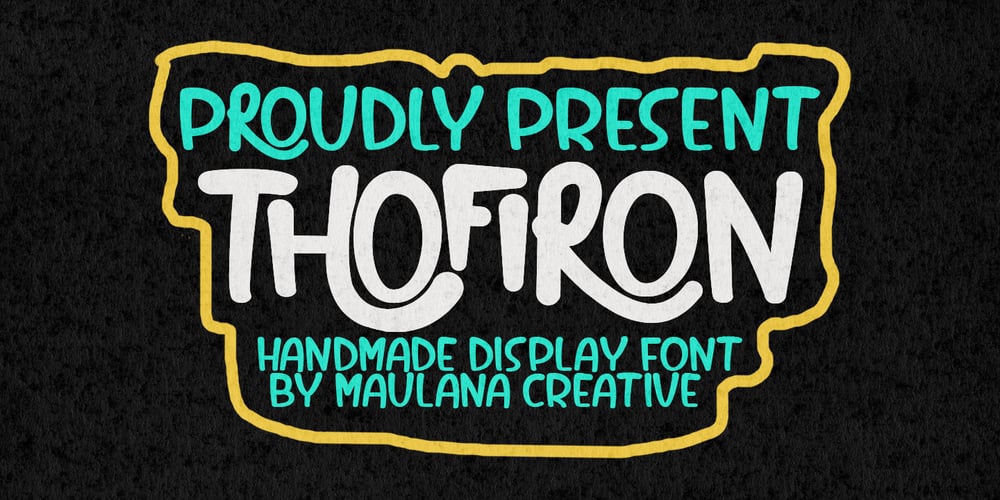
MC Thofiron Font Family was designed by Gilang Maulana and published by Maulana Creative. MC Thofiron contains 1 styles and family package options. Thofiron handmade brush display font, fun character with ligature and stylistic style. To give you an extra creative work. Thofiron handmade brush display font support multilingual language.Many Thanks,Maulana Creative